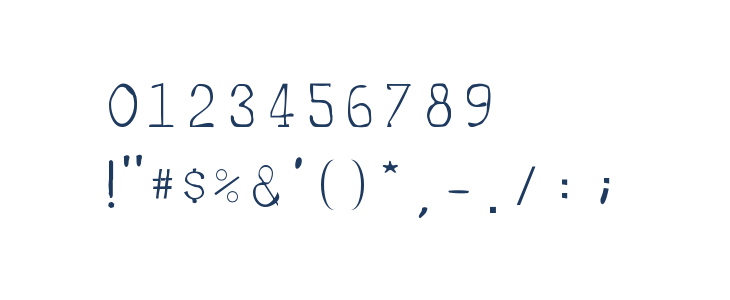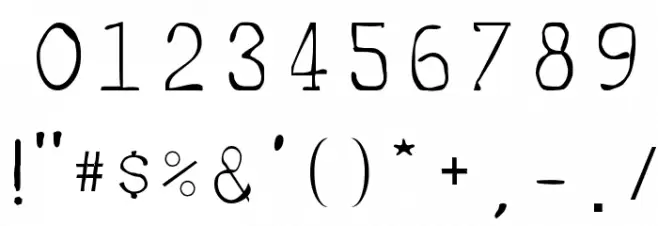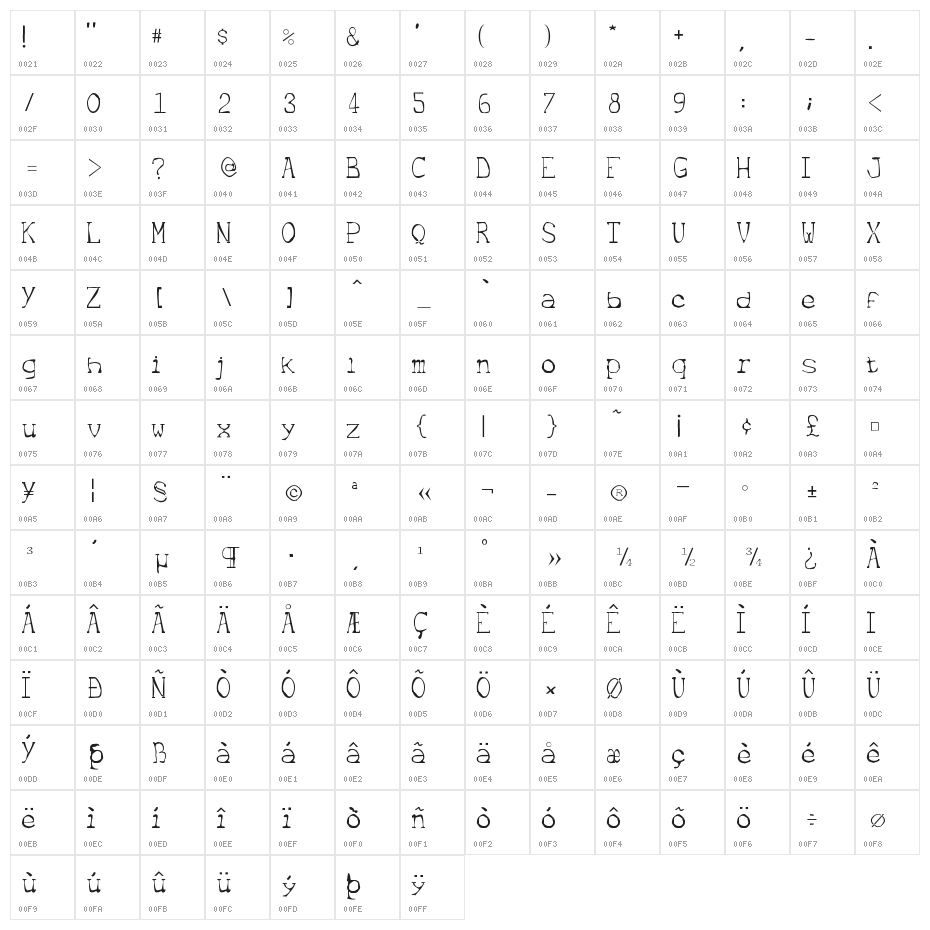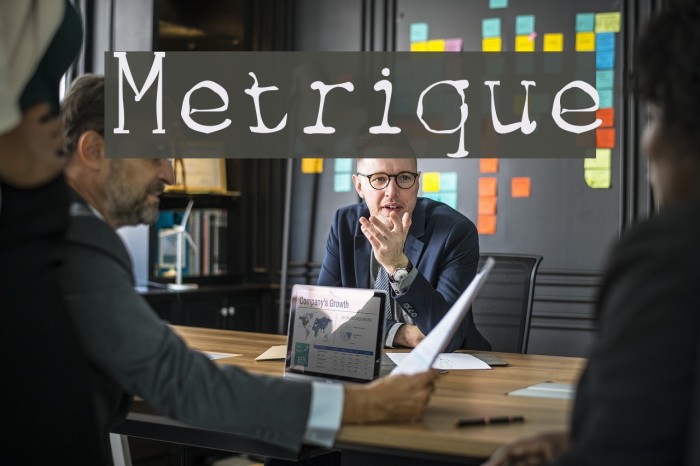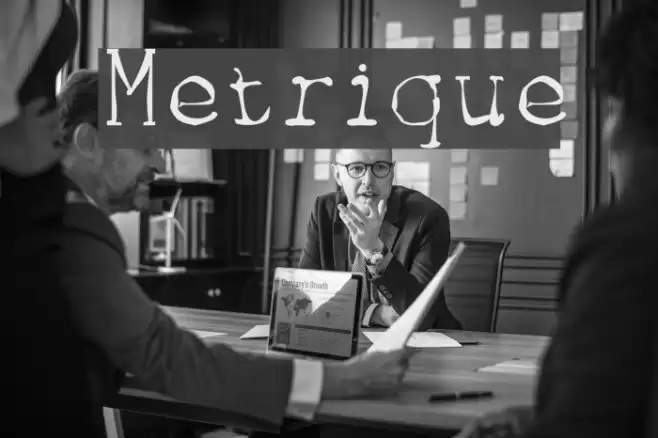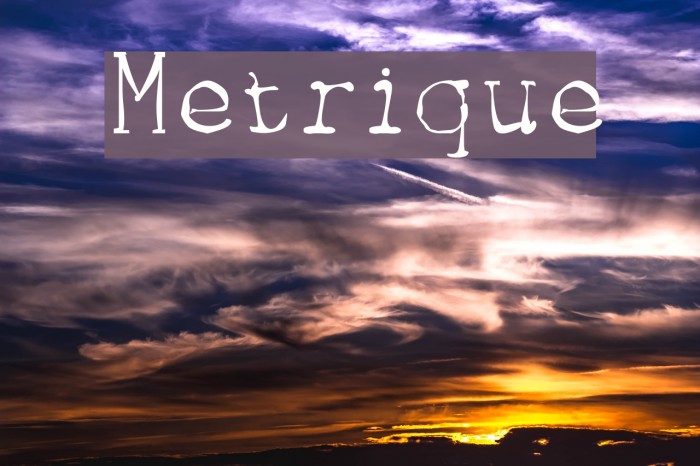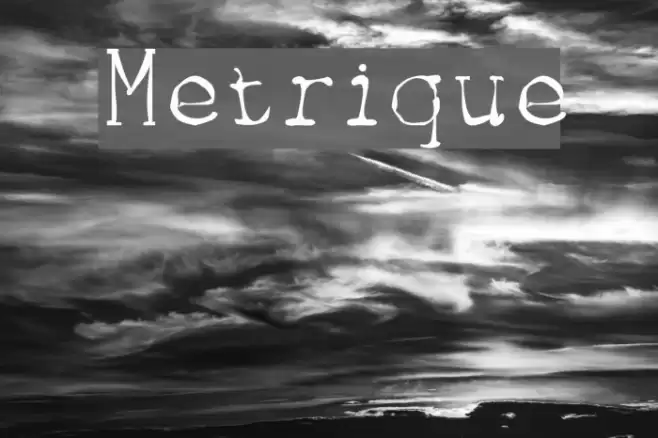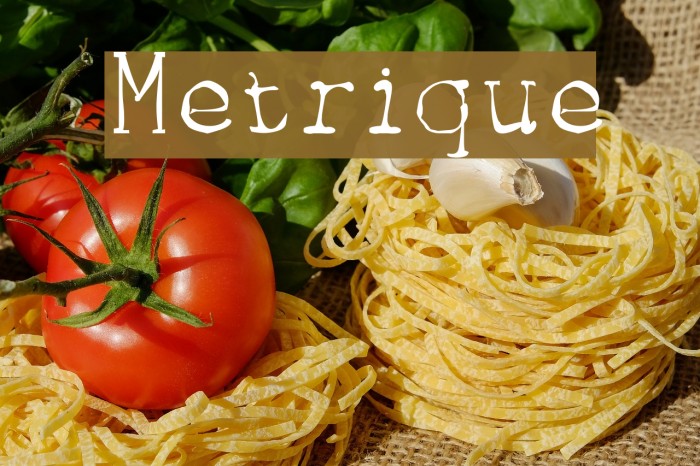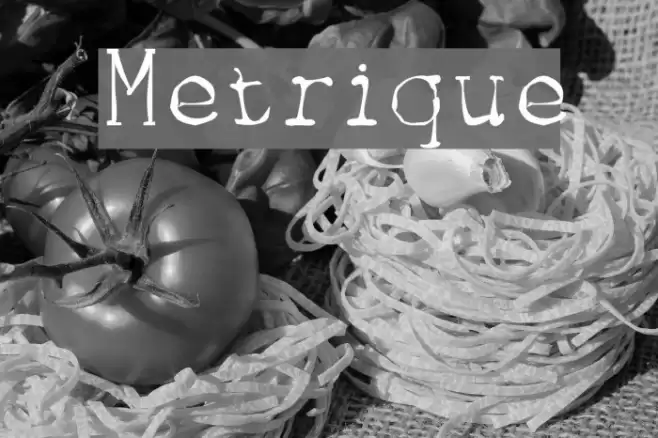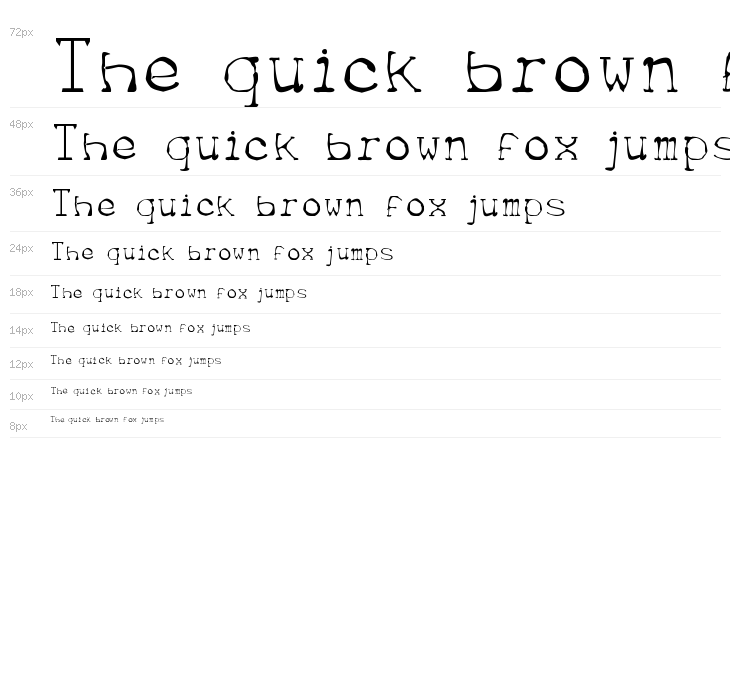
Metrique Font
Metrique Description
This font features a unique and artistic style with a hand-drawn appearance. The characters exhibit irregularities and variations in stroke width, giving it a whimsical and playful feel. The uppercase letters are bold and slightly condensed, while the lowercase letters maintain a consistent flow with distinctive curves and angles. The numerals are quirky, matching the overall aesthetic of the font. Special characters are creatively designed, adding to the font's charm. This font is ideal for projects that require a personal touch or a creative flair.
| Proposed Projects | Ideal for greeting cards, children's books, creative posters, and artistic branding. |